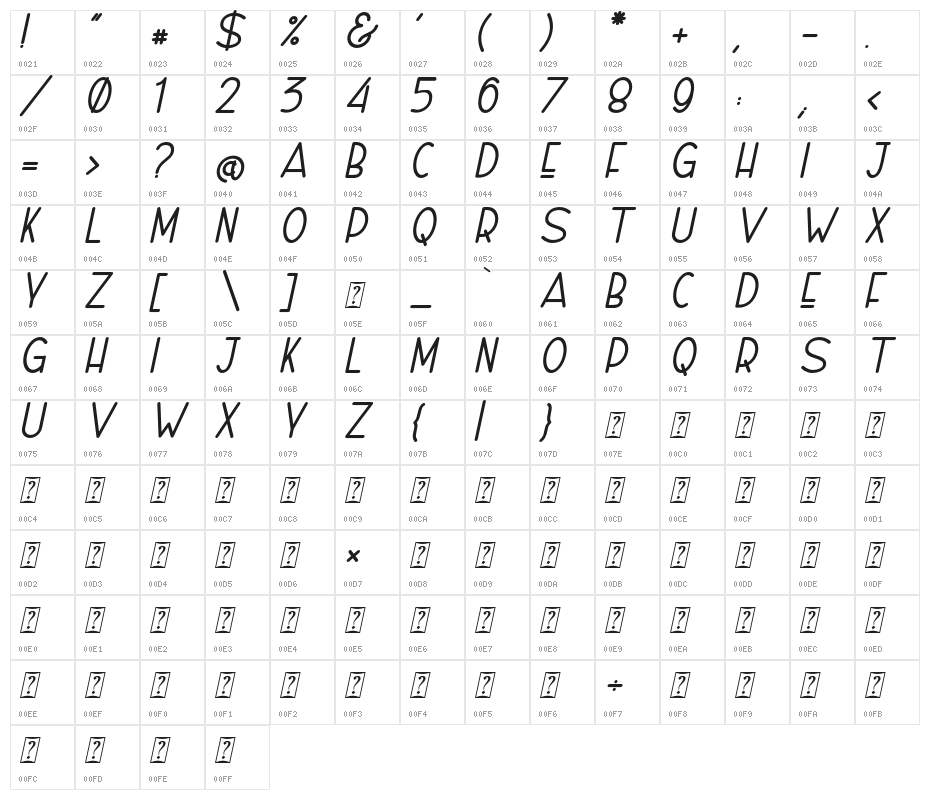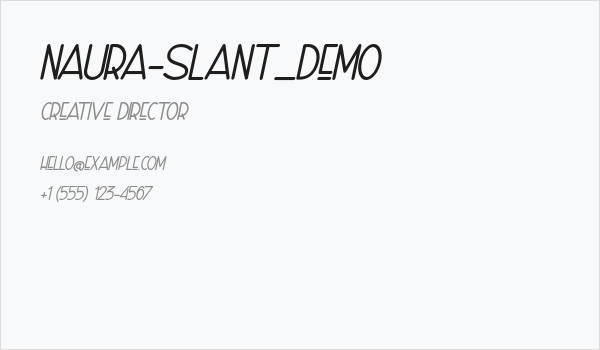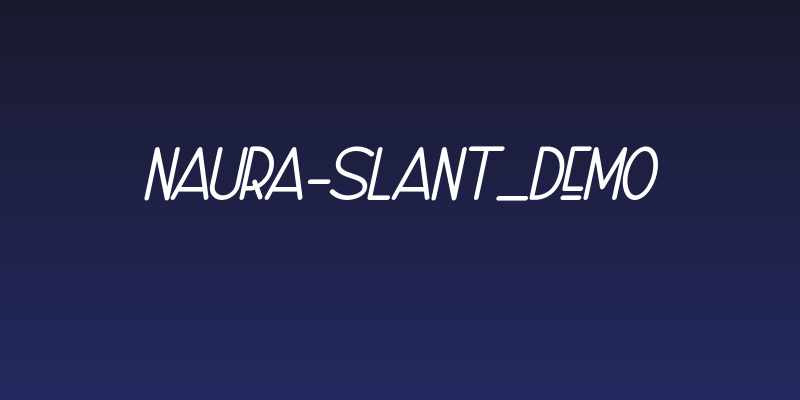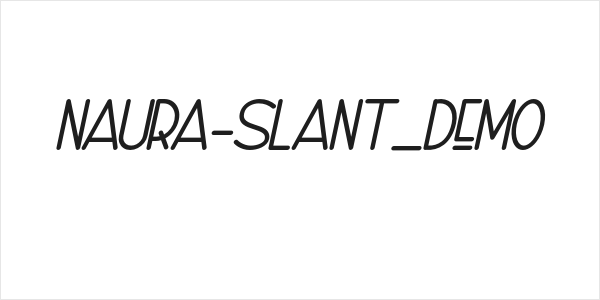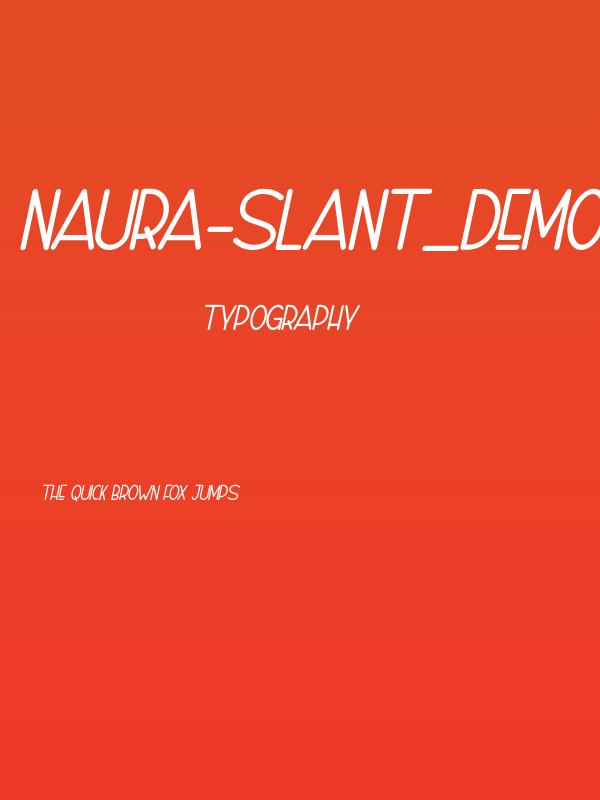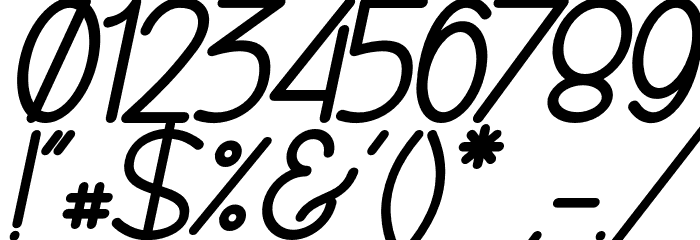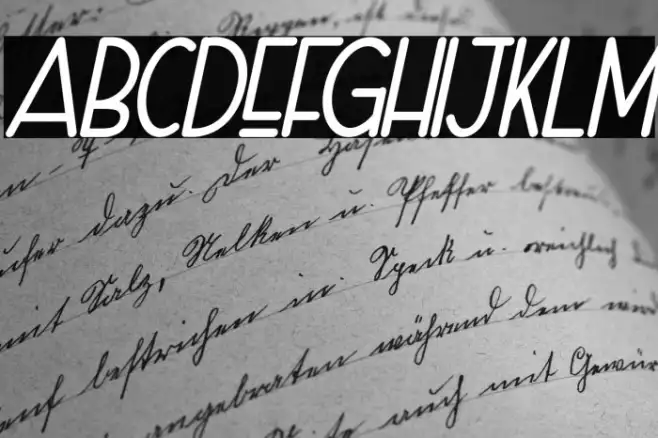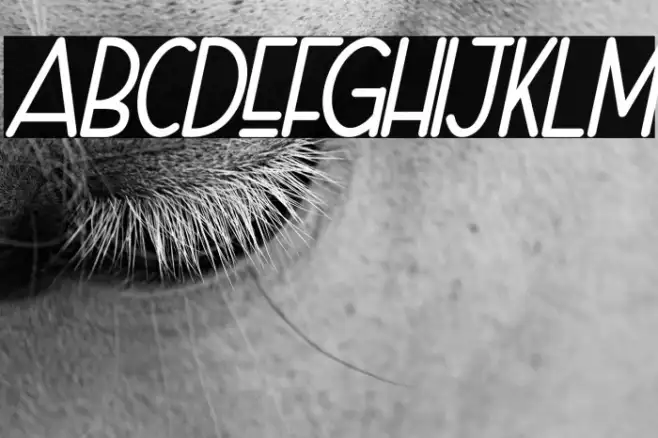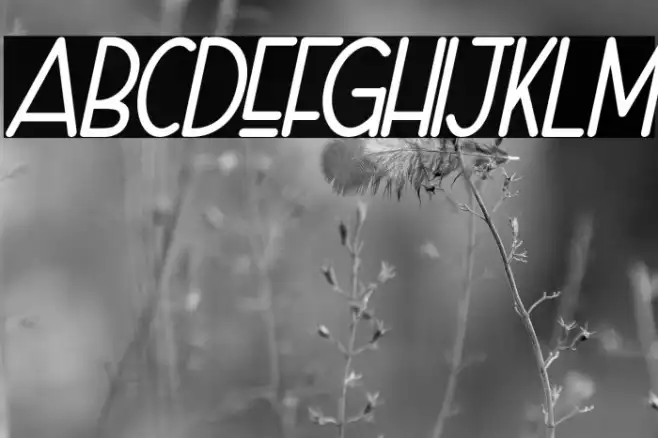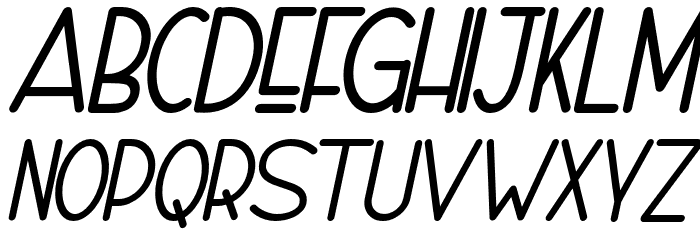
Naura-Slant_DEMO Font
Naura-Slant_DEMO Description
This font features a dynamic and energetic style with a pronounced slant, giving it a sense of motion and fluidity. The characters are elongated and slightly condensed, with smooth curves and clean lines that create a modern and sleek appearance. The uppercase and lowercase letters maintain a consistent style, with rounded edges and a uniform stroke width. The numerals and special characters are designed to complement the letters, maintaining the same slanted and streamlined aesthetic. This font is ideal for projects that require a contemporary and lively touch.